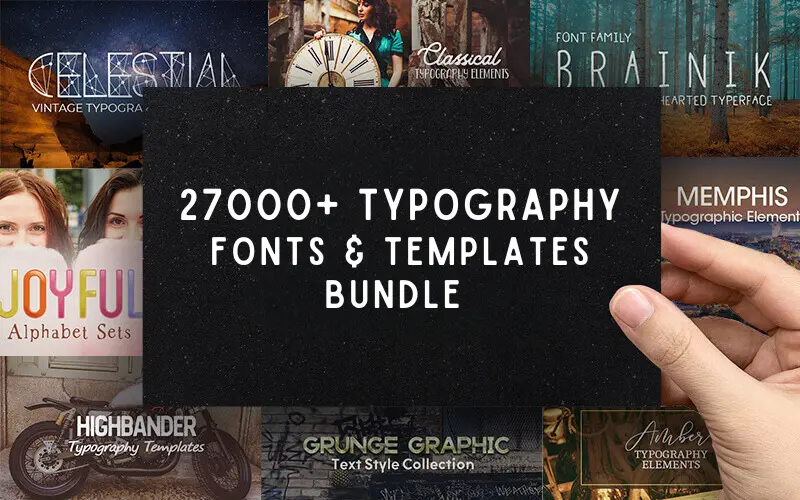
A massive bundle for typography lovers — 15 carefully curated collections with over 2,700 typographic elements. This pack covers a wide range of styles (vintage, classy, creative, versatile, and more) and includes an Extended Commercial License so you can use these assets in both personal and commercial projects.
This bundle contains 15 bundles and more than 2,700 items in total:
• Abelia — Handcrafted font
• 240 Amber Typography Elements
• 436 Artisan Fonts & Typography Presets
• Brainik — Handcrafted font family (10 fonts)
• 244 Celestial Vintage Typography Collection
• 54 Classical Typography Elements
• Dream Logo Builder — 357 unique logos
• 20 Grunge Graphic Text Style Collection
• 420 Heritage Fonts & Addons Bundle
• 24 Highbander Typography Templates
• 680 Joyful Alphabet Sets
• 167 Memphis Typographic Elements
• 28 Old Harbour Fonts Bundle
• 48 Old Spirit Fonts Bundle
• 10 Versatile Fonts Bundle
A quick sneak peek
Some highlighted items from the bundle:
• Abelia (handcrafted)
• Brainik (10-font family)
• Amber typography elements
• Artisan presets and fonts
• Celestial vintage collection
• Heritage fonts & addons
• Dream Logo Builder (357 logo templates)